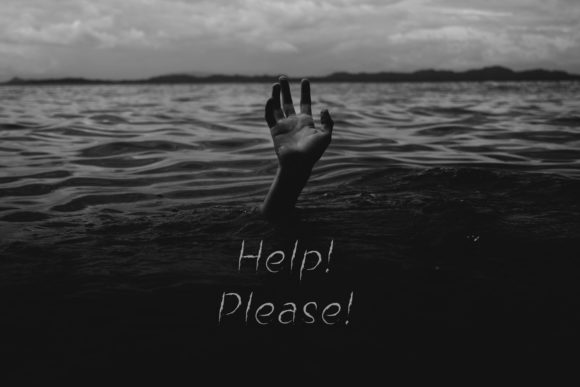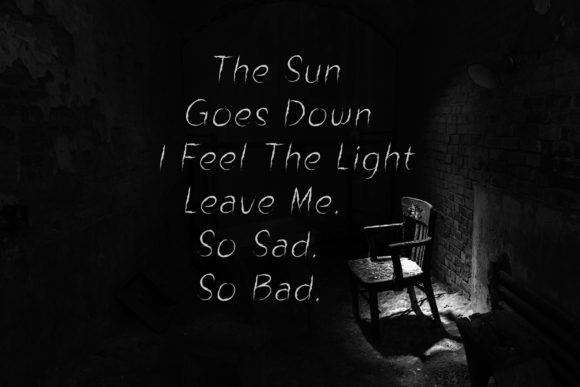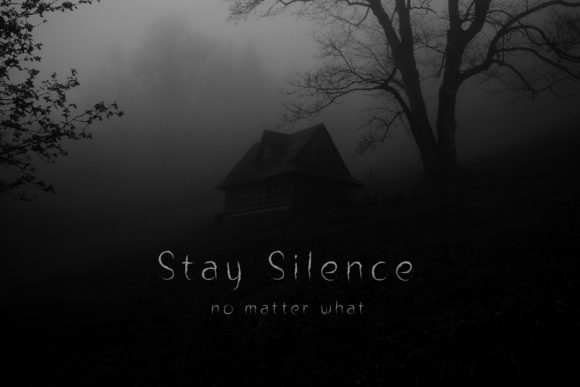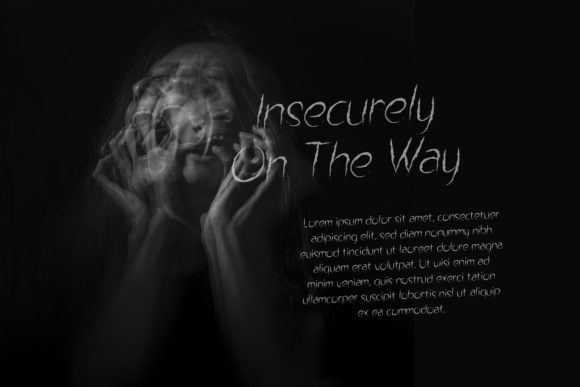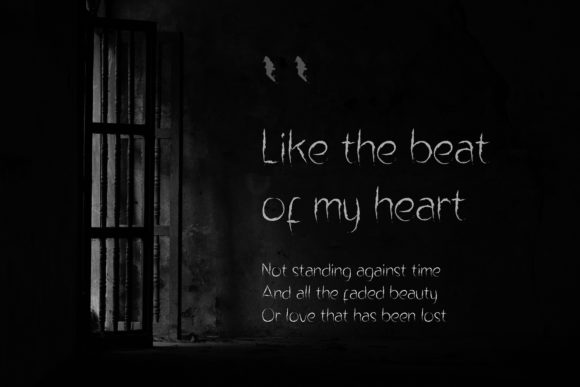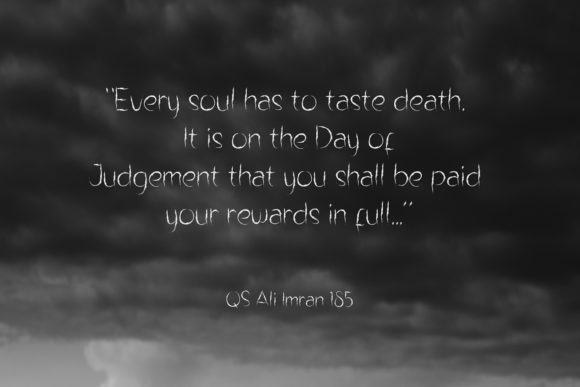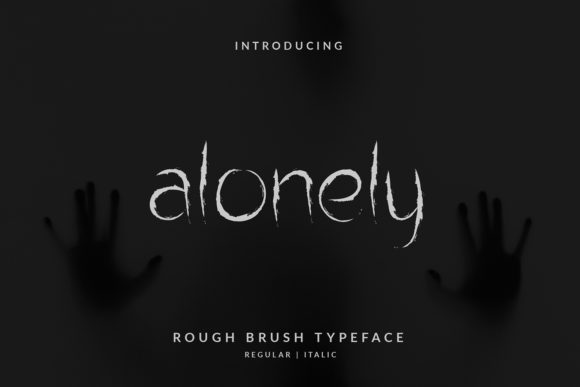
Introducing Alonely Font: The Bouncy and Quirky Display Font You Need
Are you tired of using the same old fonts in your designs? Do you want to add a fresh and contemporary touch to your creative projects? Look no further than Alonely Font, a bouncy and quirky display font that’s sure to make your designs stand out.
What is Alonely Font?
Alonely Font is a unique and eye-catching display font that’s perfect for designers and crafters who want to add some personality to their work. With its bouncy and quirky style, this font is sure to grab attention and leave a lasting impression.
Key Features of Alonely Font
- Bouncy and Quirky Style: Alonely Font has a fun and playful style that’s perfect for designs that need a bit of personality.
- Display Font: This font is specifically designed for display purposes, making it perfect for headlines, titles, and other attention-grabbing elements.
- Fresh and Contemporary Touch: Alonely Font adds a fresh and contemporary touch to your designs, making them look modern and stylish.
- Unique and Eye-Catching: This font is sure to grab attention and leave a lasting impression, making it perfect for designs that need to stand out.
How to Use Alonely Font in Your Designs
Alonely Font is perfect for a variety of design projects, including:
- Headlines and Titles: Use Alonely Font to create eye-catching headlines and titles that grab attention.
- Logos and Branding: Add a touch of personality to your logos and branding with Alonely Font.
- Social Media Graphics: Use Alonely Font to create fun and engaging social media graphics that stand out.
- Posters and Flyers: Add a fresh and contemporary touch to your posters and flyers with Alonely Font.
Why Choose Alonely Font?
There are many fonts to choose from, but Alonely Font stands out from the rest. Here are just a few reasons why:
- Unique Style: Alonely Font has a unique and eye-catching style that’s sure to grab attention.
- Easy to Read: Despite its quirky style, Alonely Font is easy to read, making it perfect for designs that need to communicate a message.
- Versatile: Alonely Font can be used in a variety of design projects, from logos and branding to social media graphics and posters.
Tips for Using Alonely Font Effectively
Here are a few tips for using Alonely Font effectively in your designs:
- Use it Sparingly: Alonely Font is a bold and attention-grabbing font, so use it sparingly to avoid overwhelming your design.
- Pair it with Other Fonts: Pair Alonely Font with other fonts to create a unique and interesting contrast.
- Experiment with Colors: Alonely Font looks great in a variety of colors, so experiment with different colors to find the one that works best for your design.
| Font Name | Alonely Font |
| Author | Dicubit |
Alonely Font is a bouncy and quirky display font that’s perfect for designers and crafters who want to add a fresh and contemporary touch to their designs. With its unique style, ease of use, and versatility, Alonely Font is sure to become a favorite in your design toolkit. So why wait? Add Alonely Font to your creative projects today and watch them come to life!